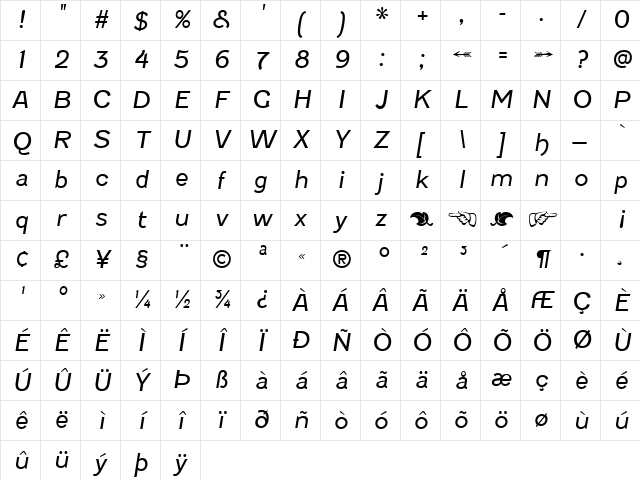
Fenwick Light is a composed and adaptable typeface that performs quietly and consistently across a wide range of design contexts. The slanted form adds forward momentum and visual energy. Its slender proportions lend an understated elegance to any composition.
Pro Tip: Use Fenwick Light for emphasis, pull quotes, and subheadings where its slanted energy can add rhythm to the layout.